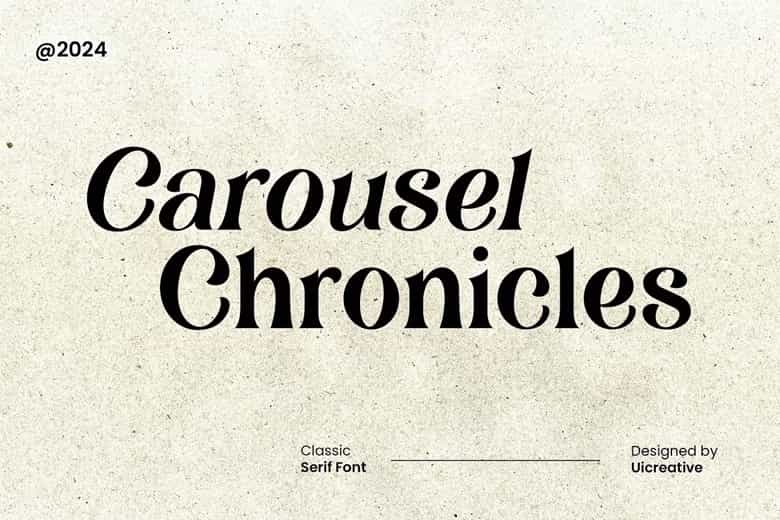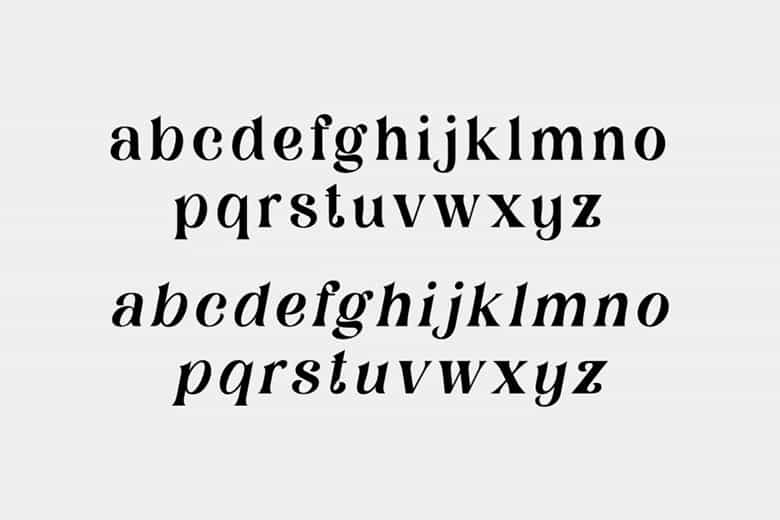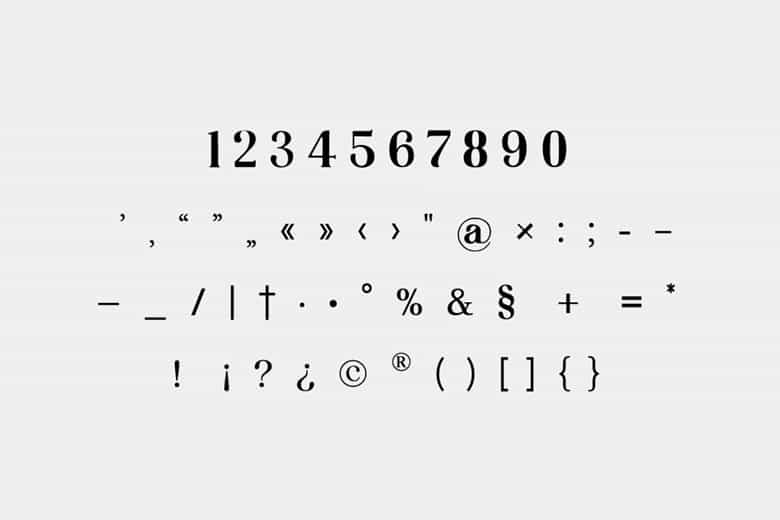
Carousel Chronicles is a modern serif font. It looks elegant classy stylish and beautiful whenever i am in it i feel like a million bucks. This font is very versatile, and that makes it perfect for different kind of projects, such as stationery use, logo, wedding, typography quotes, magazine or book covers, website headers, branding and much more.